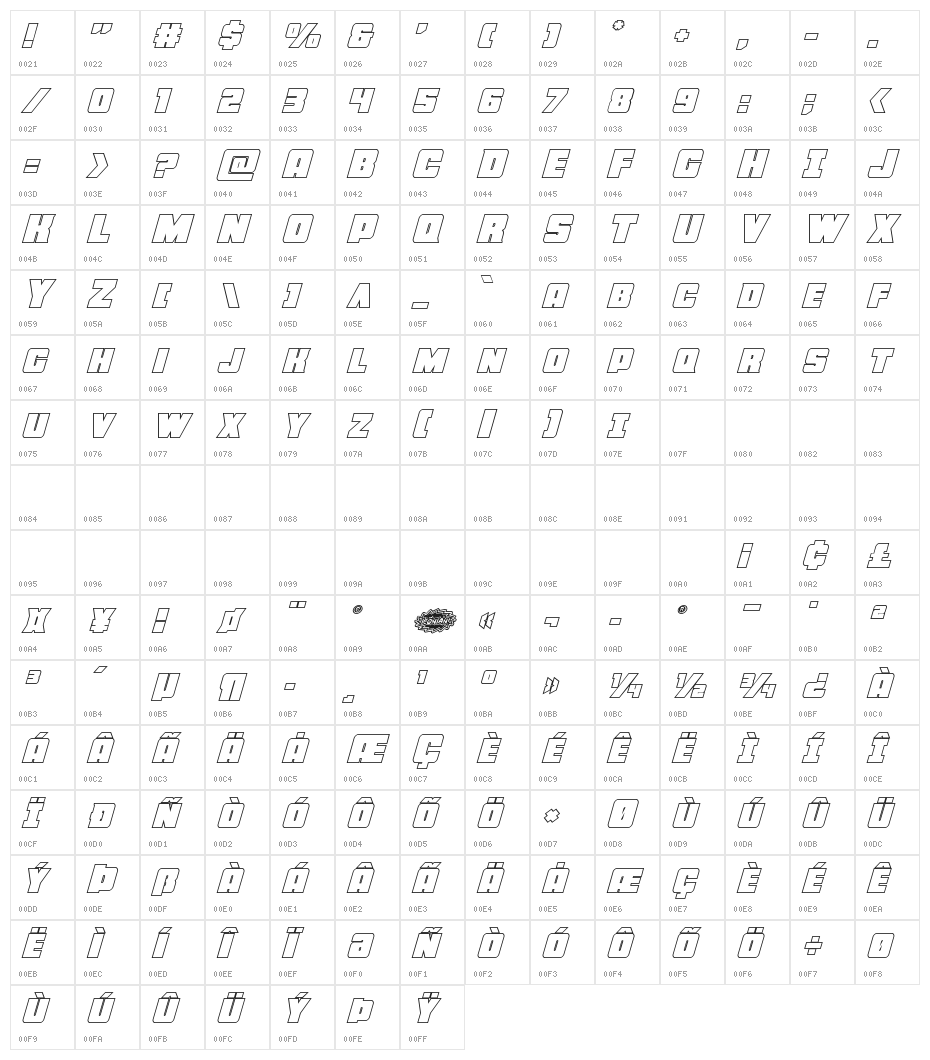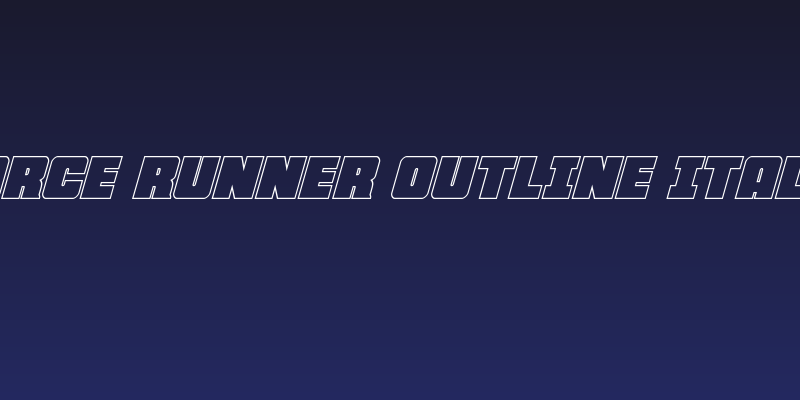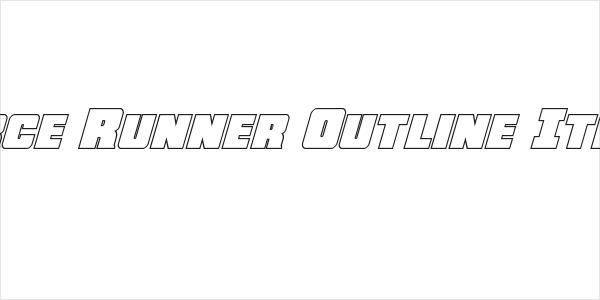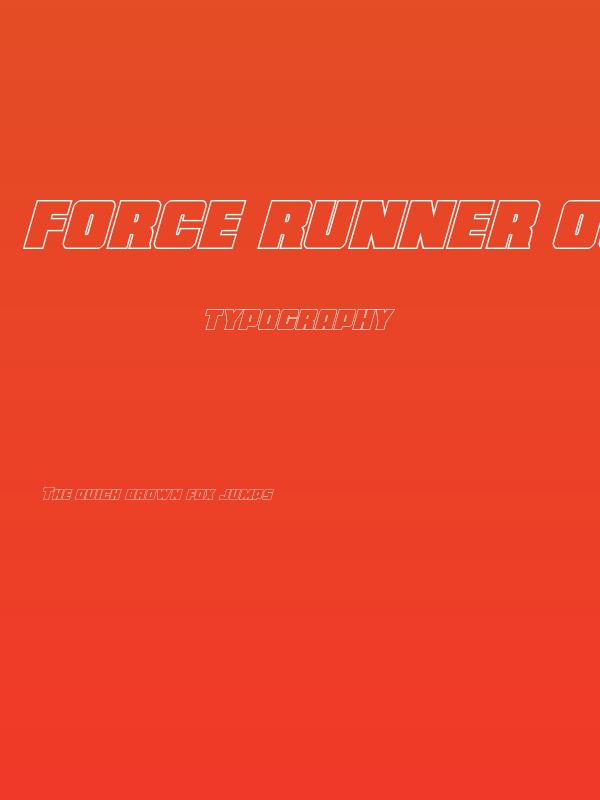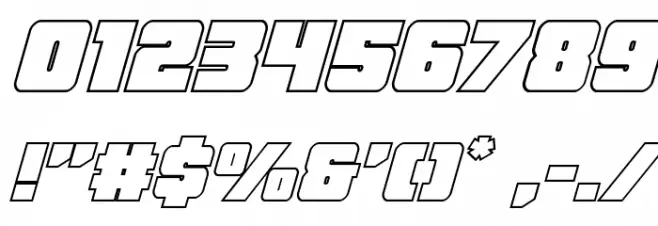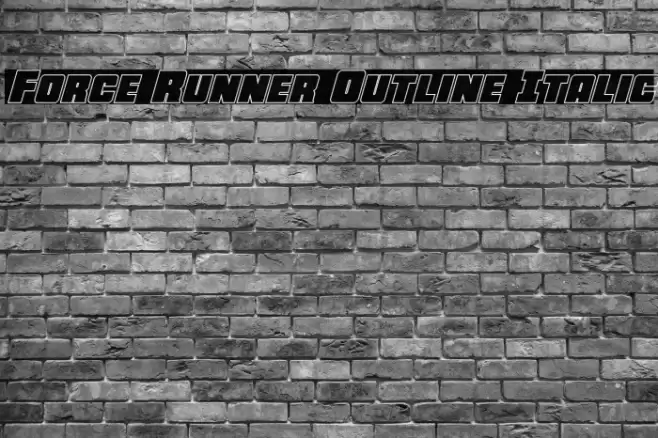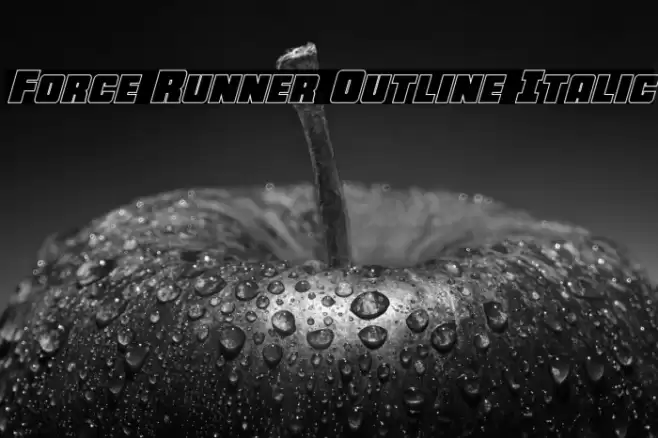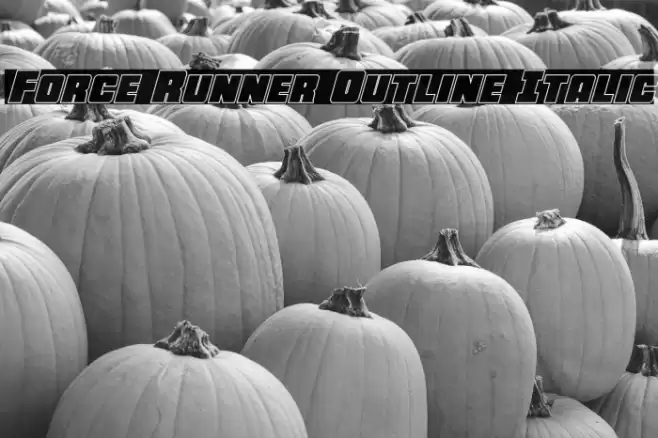
Force Runner Outline Italic Font
Force Runner Outline Italic Description
This font features a bold, outlined style with a distinct italic slant, giving it a dynamic and energetic appearance. The uppercase and lowercase letters are designed with a consistent outline that emphasizes their geometric shapes. The numbers and special characters maintain the same outlined and italicized style, ensuring uniformity across all characters. The font's boldness and outline make it highly visible and suitable for attention-grabbing designs. Its italic nature adds a sense of motion and speed, making it ideal for projects that require a modern and sporty aesthetic.
| Proposed Projects | Ideal for sports branding, dynamic posters, modern advertisements, and any project requiring a bold, energetic look. |